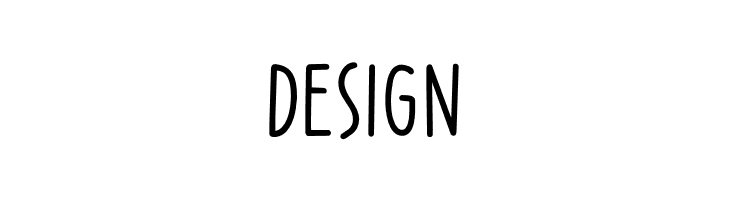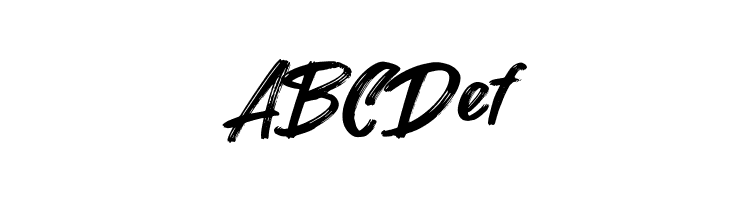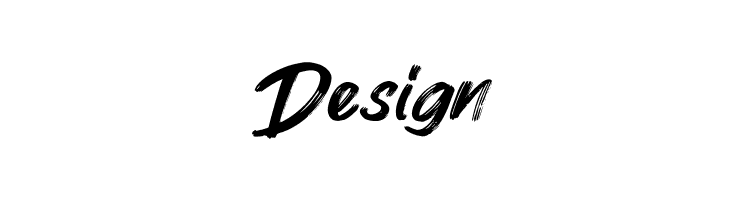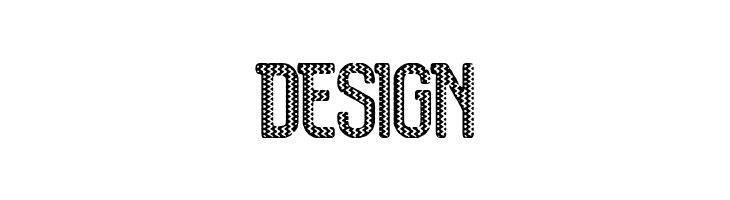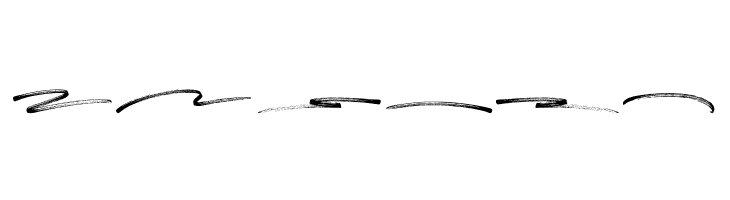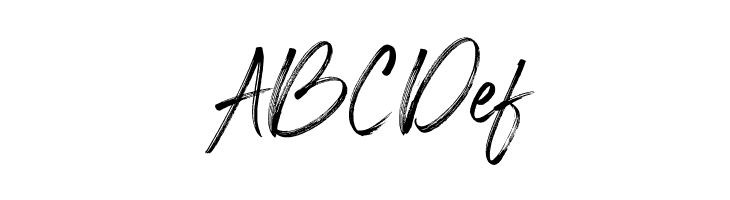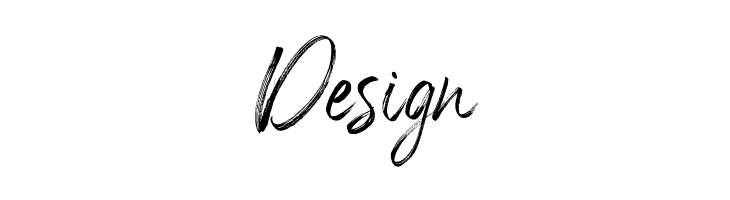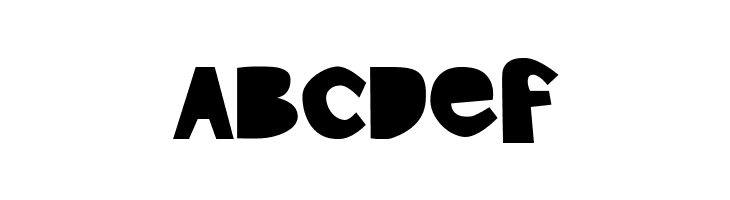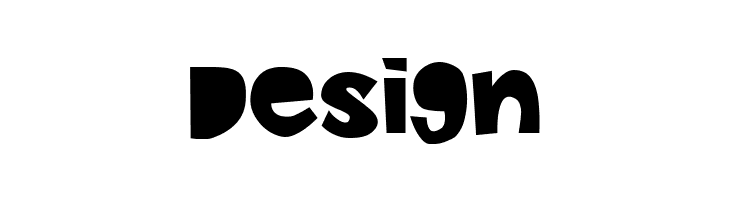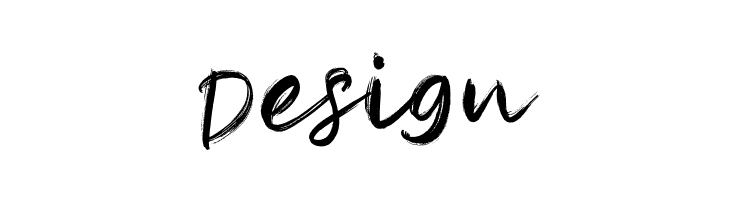
• pandaman-Hollow-Inverse
A modern, geometric hollow font with a futuristic and striking appearance.
• pandaman-Inverse
A bold, modern font with unique inverse styling and strong visual impact.
• pandaman-Light
A bold, geometric font with a futuristic and modern design.
• Pandora
A bold, decorative font with a checkered pattern filling each character.
• Pandora
A bold, decorative font with a checkered pattern, ideal for eye-catching designs.
• Pandu-Regular
A bold, expressive handwritten font with a brush-like texture.
• Pandu-Regular
A bold, handwritten font with dynamic brush-like strokes.
• Panhitra-Slab
A bold slab serif font with a modern twist, featuring pronounced serifs and uniform stroke width.
• Panhitra-Slab
A robust slab serif font with a modern yet classic appeal.
• Pankaj
A clear and balanced Gurmukhi script font with consistent stroke width.
• Pantara
A bold, brush-style font with expressive, hand-painted strokes.
• Panterick
A dynamic, brush-style script font with expressive strokes.
• PanterickSwash
An elegant and flowing script font with sweeping swashes and fluid letterforms.
• Panton Rust Heavy Grunge Shadow
A bold, grunge-style font with a heavy shadow effect and distressed texture.
A semi-bold script font with a grunge texture and dynamic flow.
A bold, grunge-textured script font with a rustic and vintage appeal.
• Pantura Regular
A playful, rounded font with tall, narrow letters and smooth curves.
• Paper Cutz
A playful, bold font with a cut-out paper style, perfect for creative projects.
• Paper Sign
A modern, elegant font with flowing uppercase and structured lowercase letters.
• PaperCut-Regular
• Papua Demo
A playful, hand-drawn font with an artistic and dynamic style.
• Parachute Signature
A flowing, elegant script font with a modern, handwritten style.